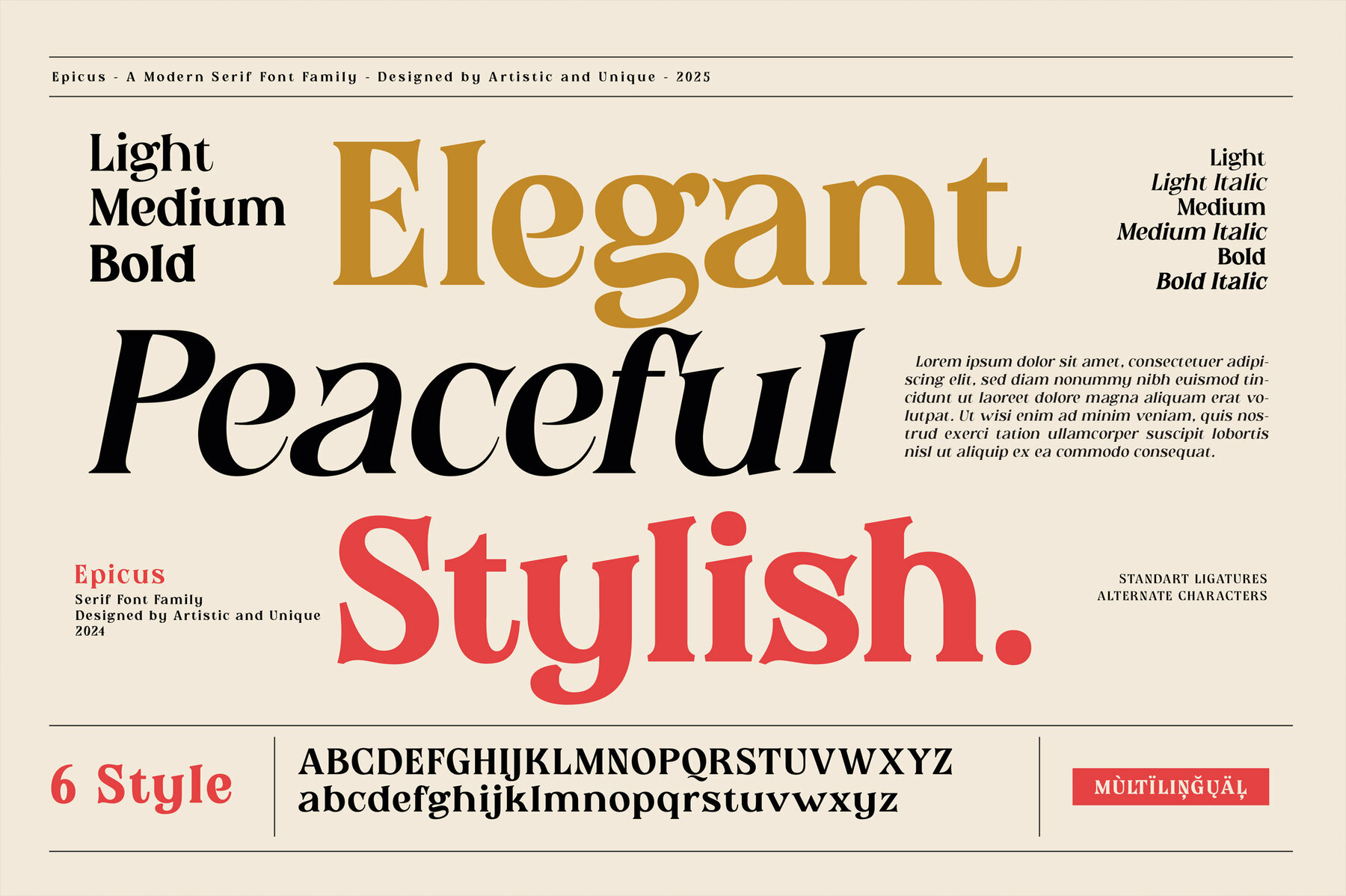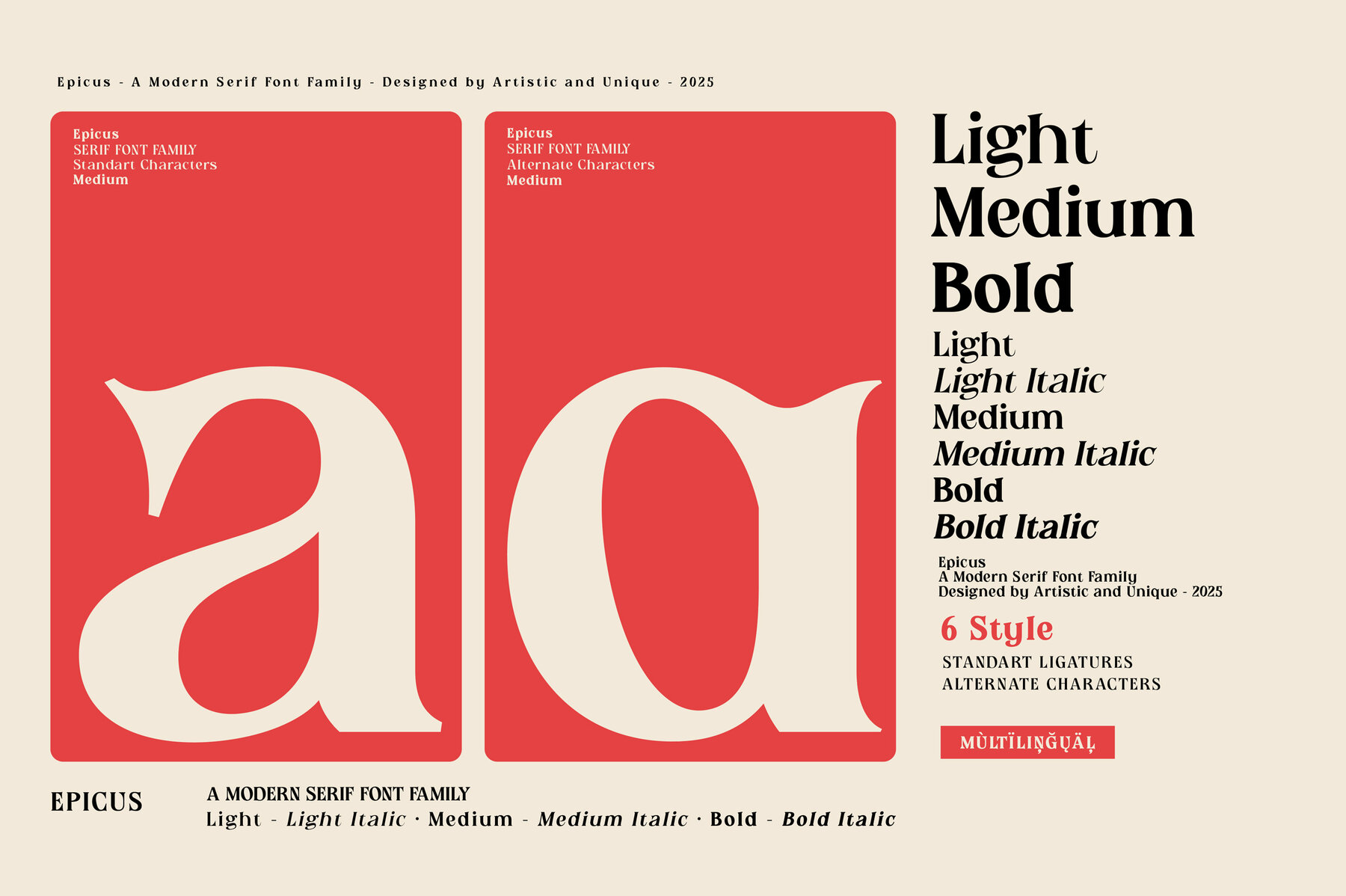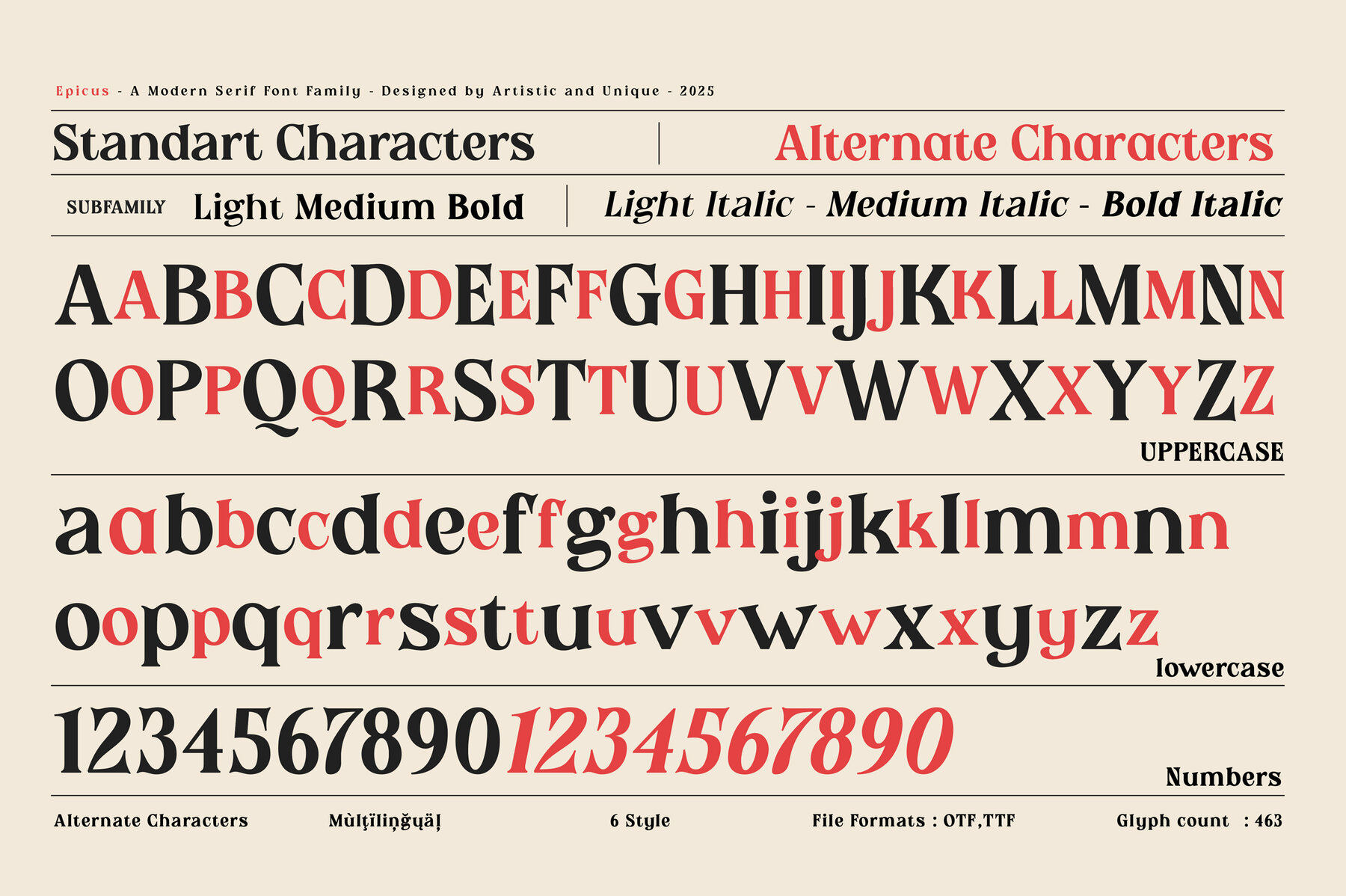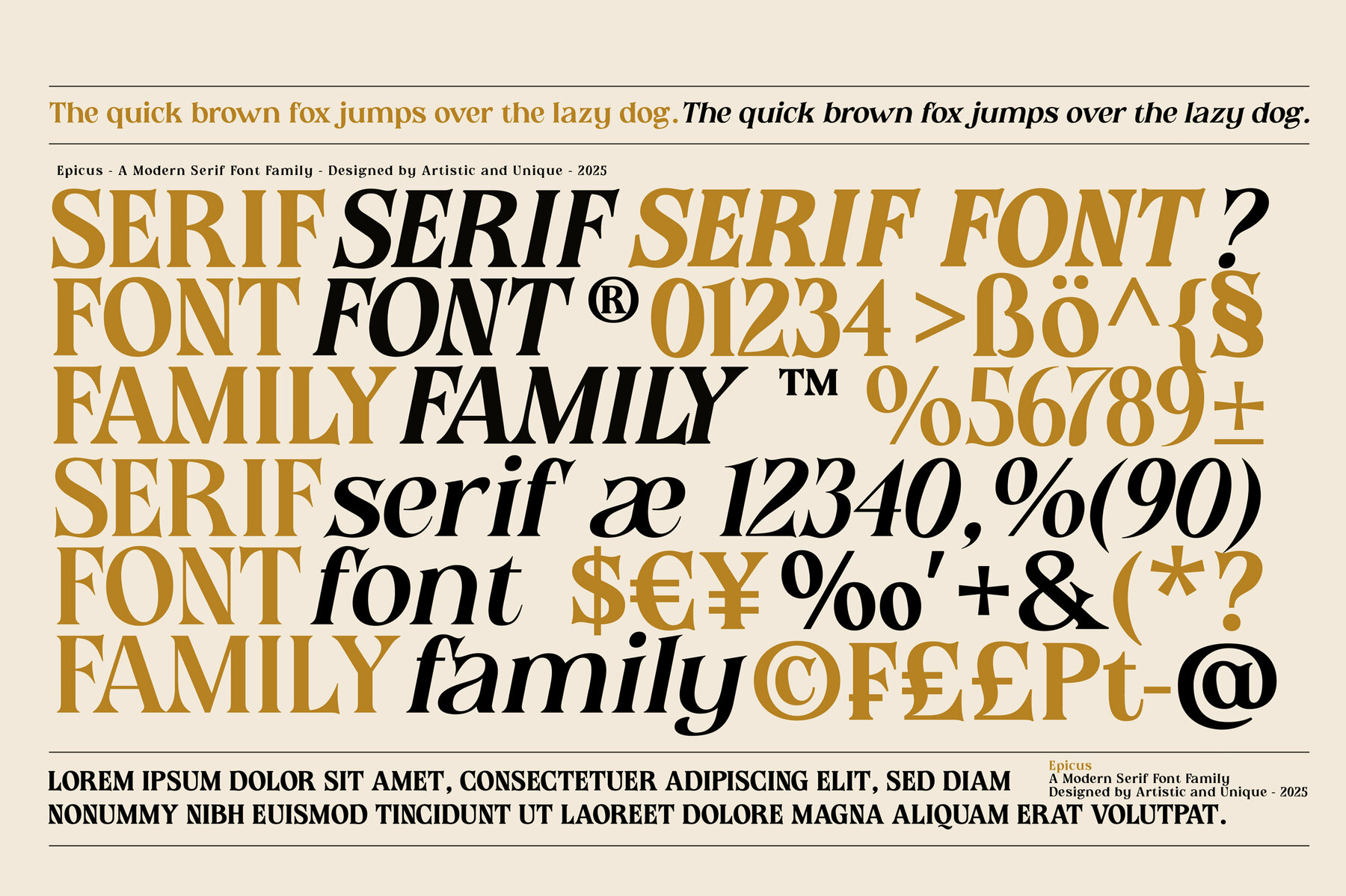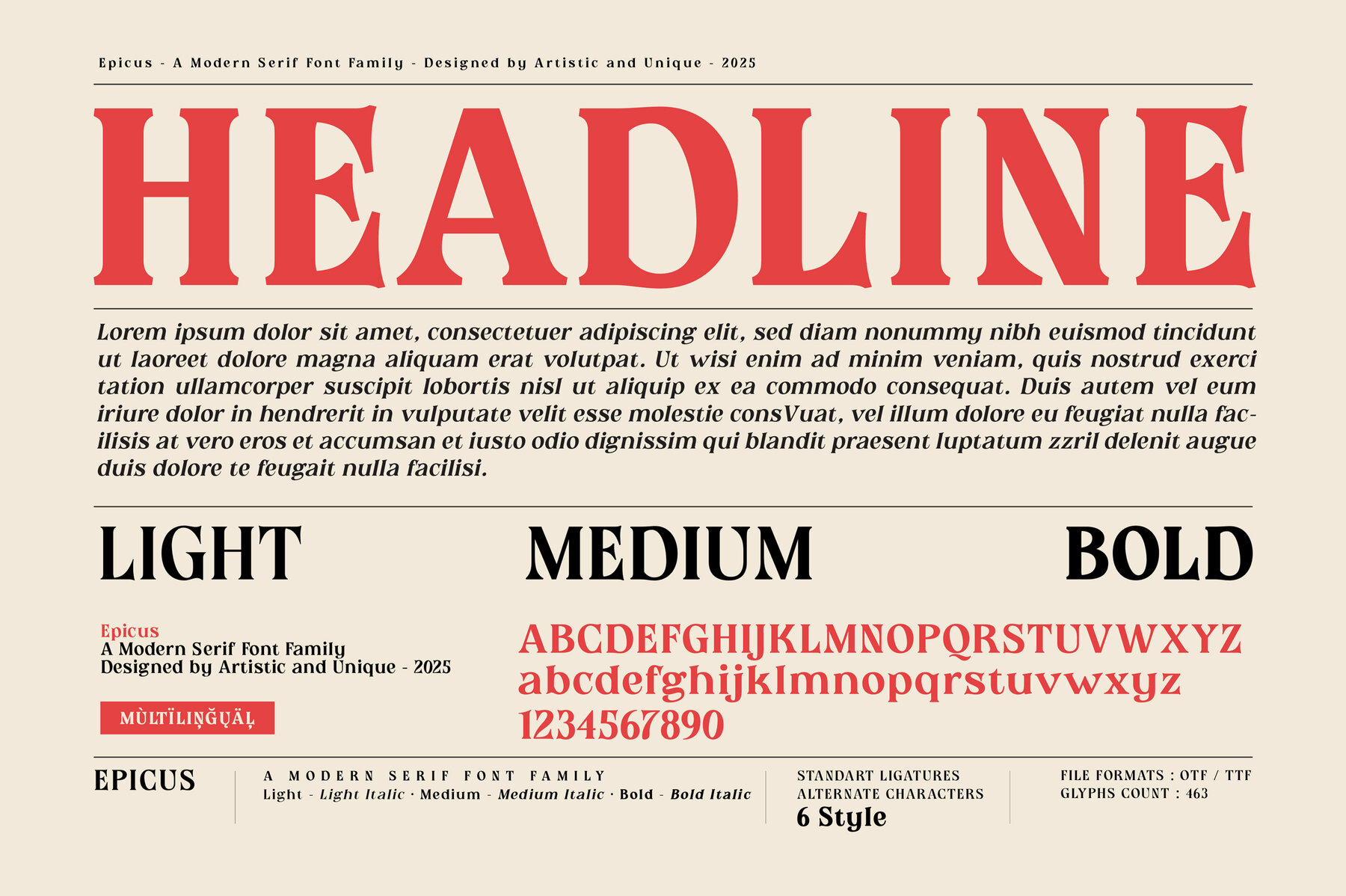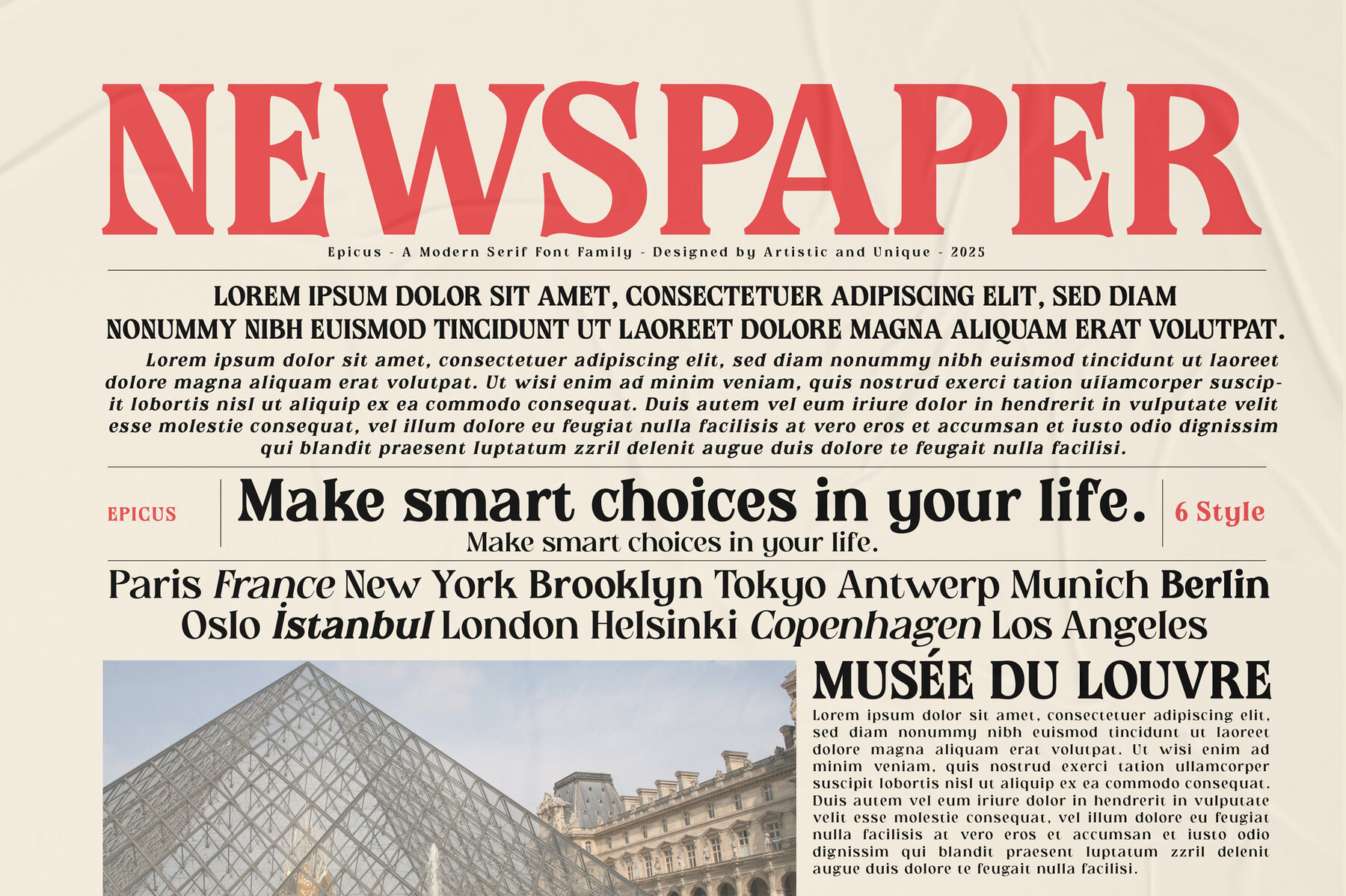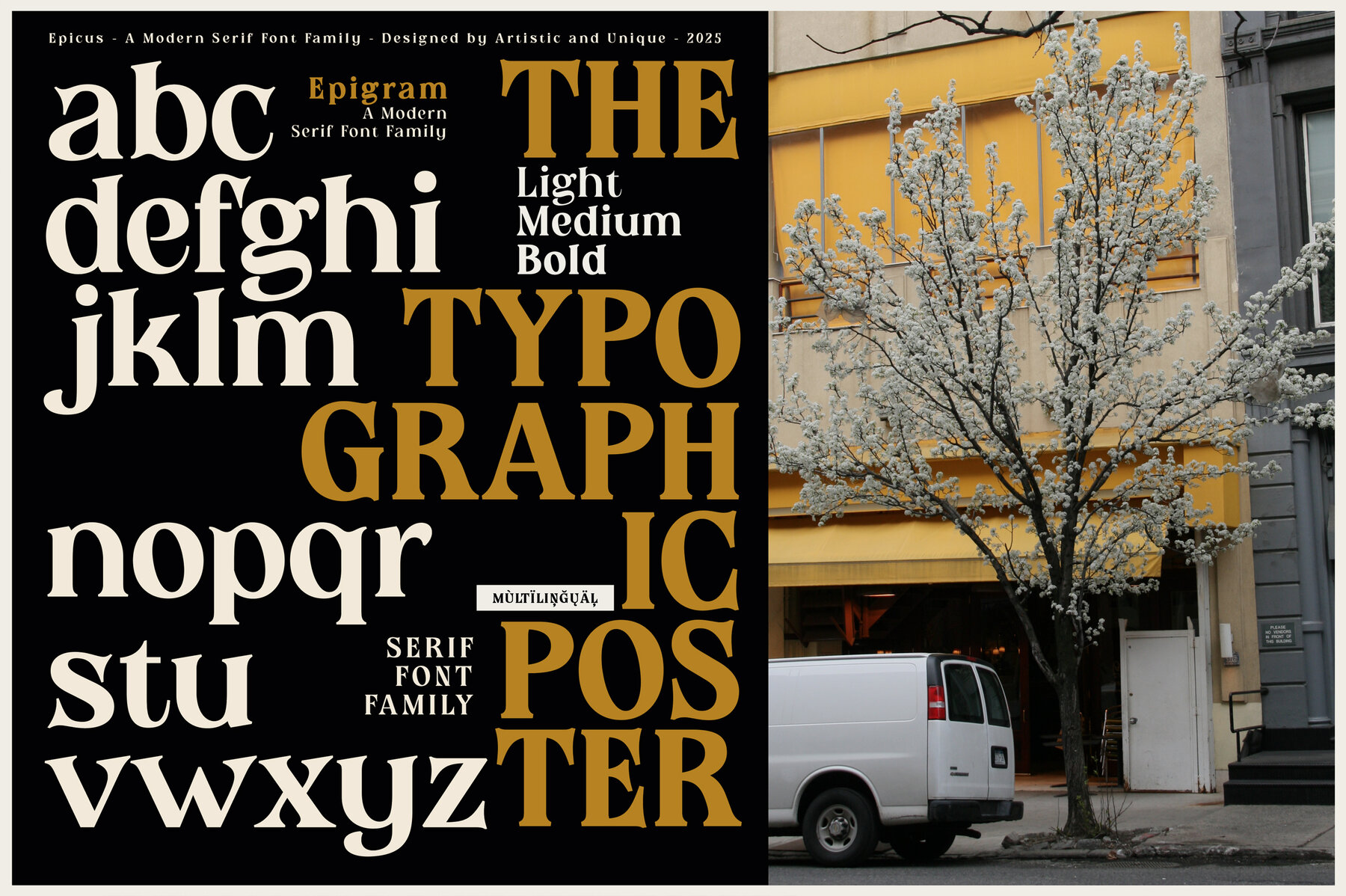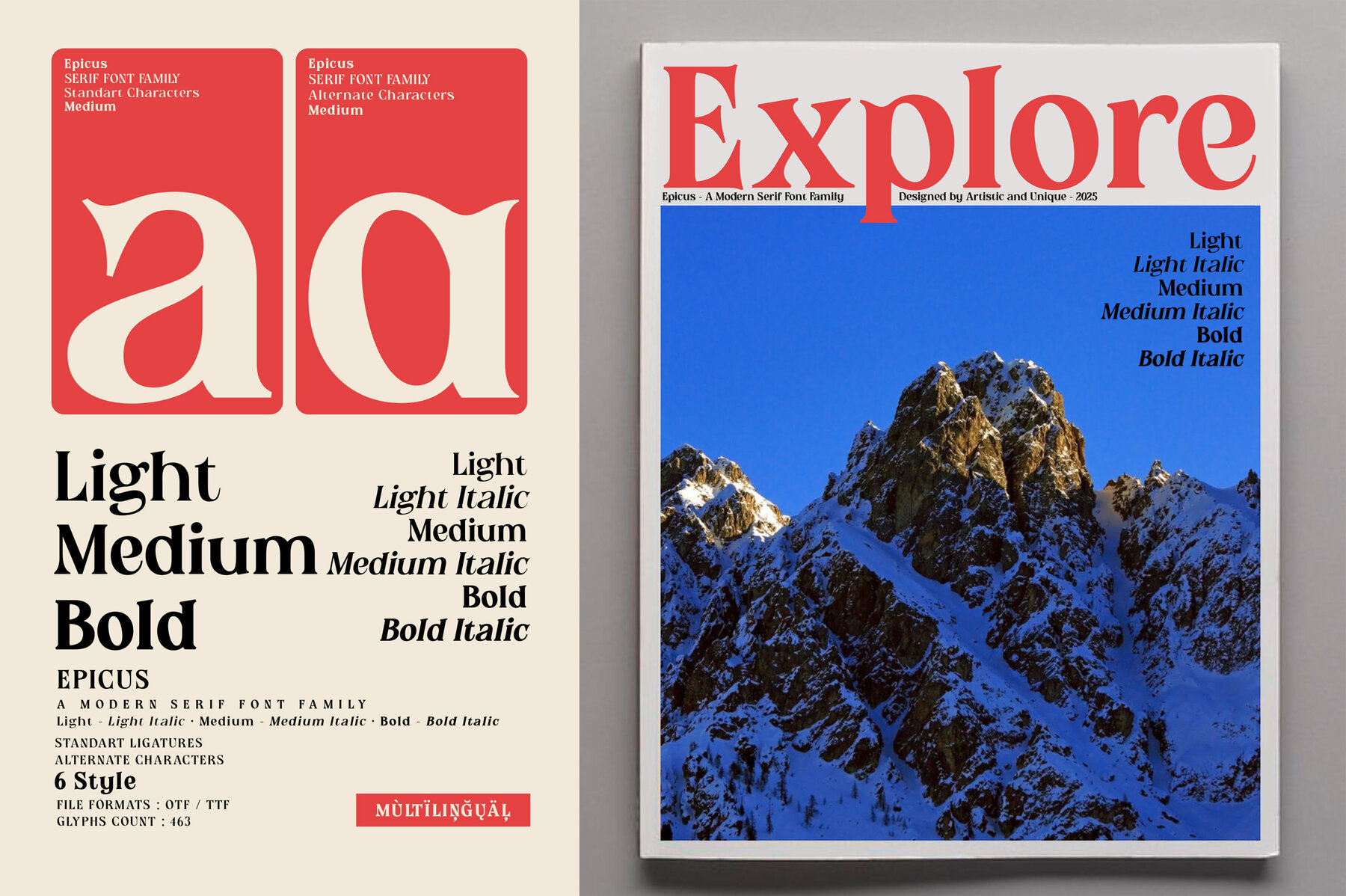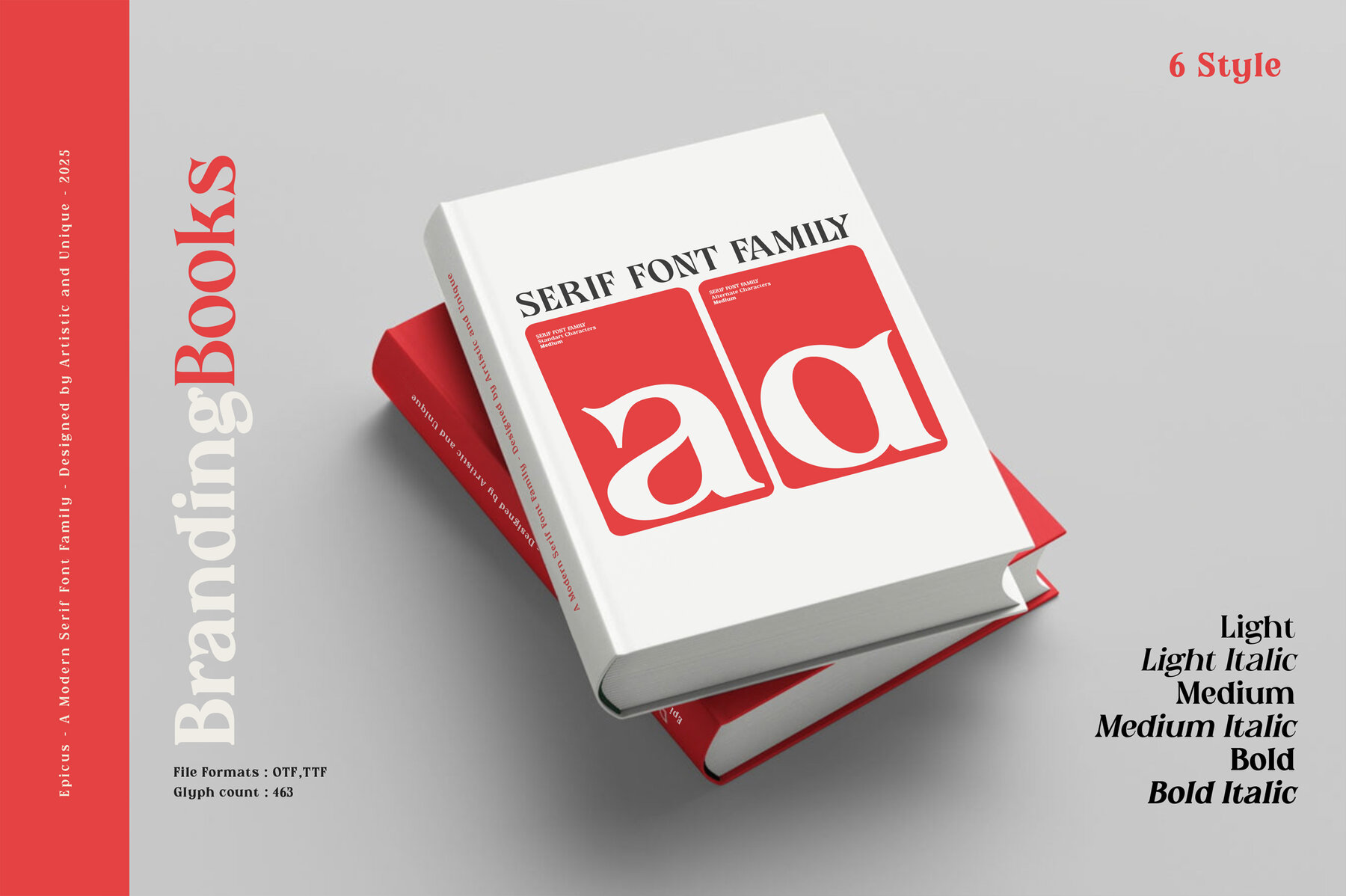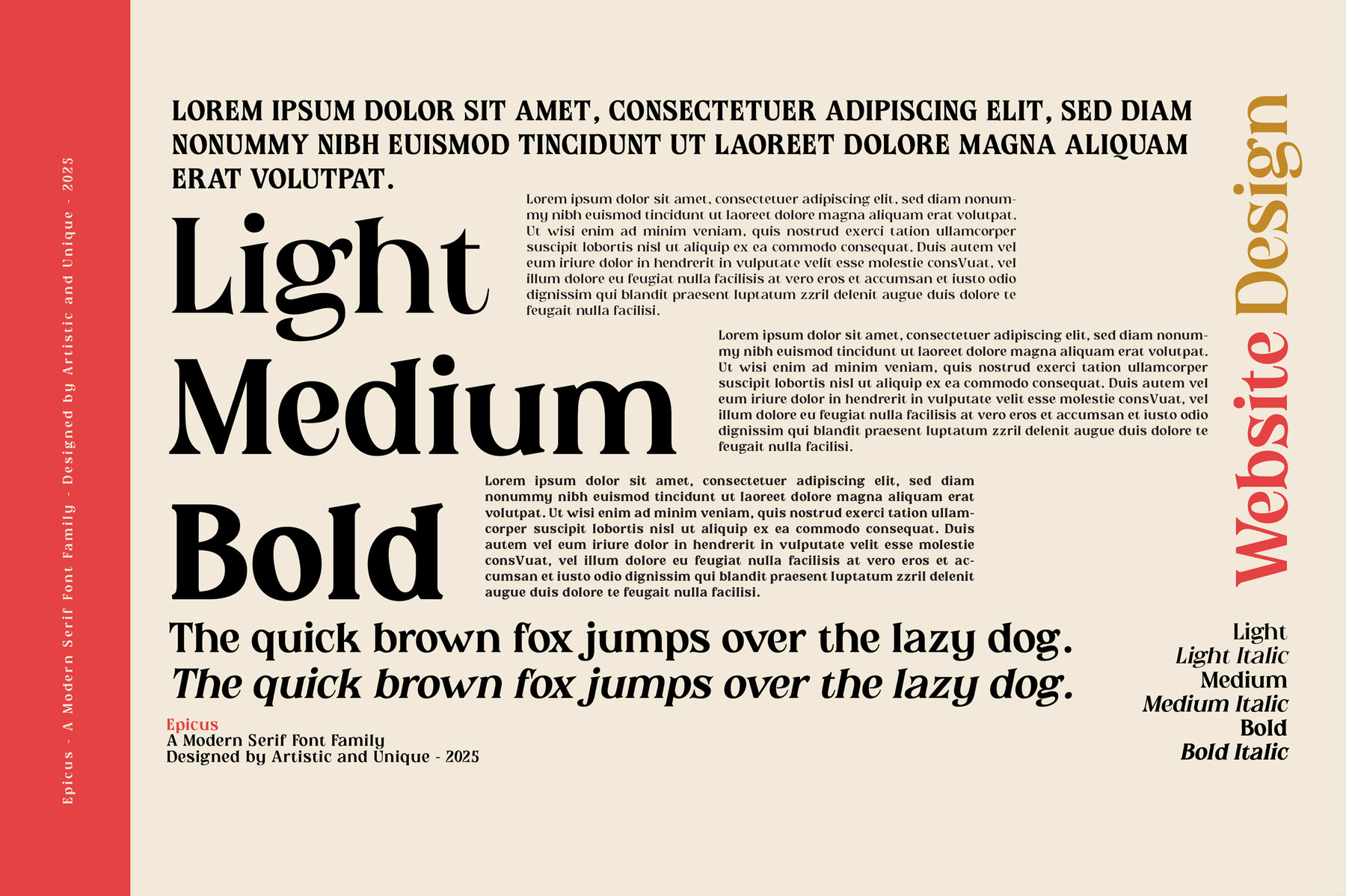
Epicus Font
Dive into the world of refined typography with Epicus, a distinctive serif font family featuring six unique styles and multilingual support. This font stands out with its alternative character designs, offering you the flexibility to enhance the content of diverse projects. Epicus is perfect for enriching book titles, magazine spreads, logos, and branding materials. Its aesthetic appeal and versatile characters allow it to seamlessly integrate into typographic compositions, while its elegant structure enriches plain text with sophistication.Epicus: A Versatile Serif with Six Styles